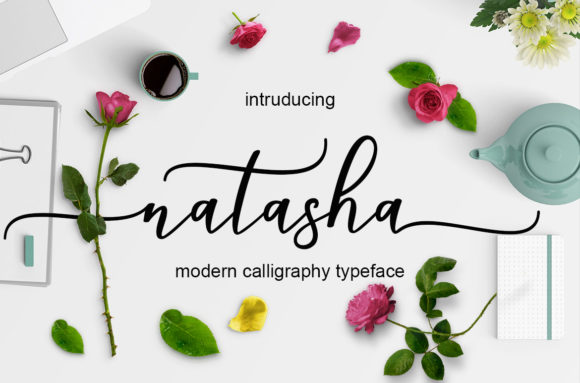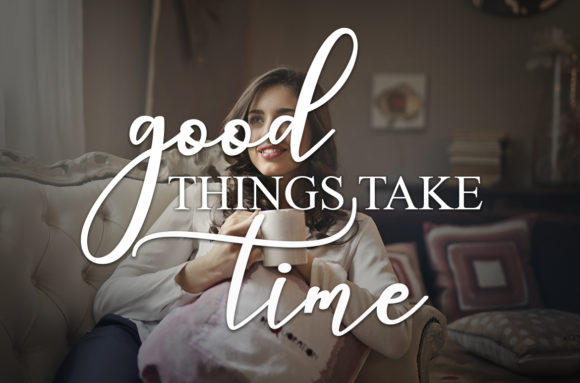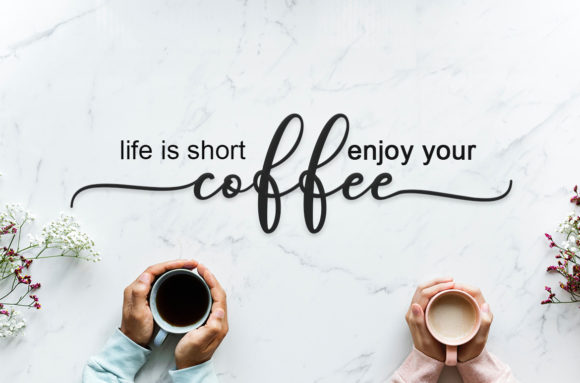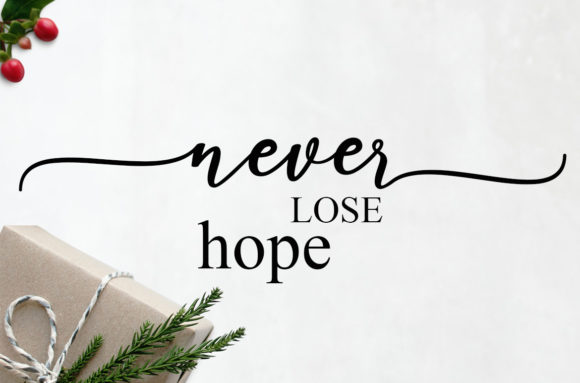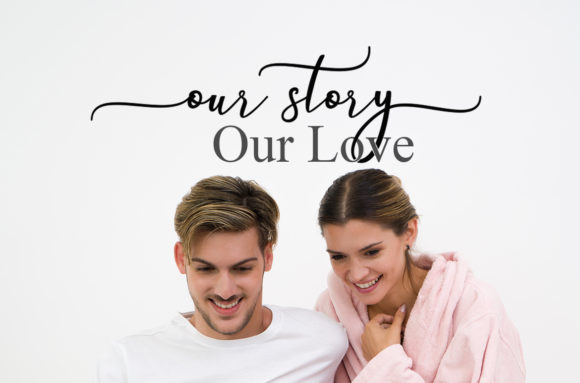
Natasha Script Font
About Natasha Script Font
The Natasha is a fresh and modern script font. It has a classy calligraphy style and includes amazing decorative characters.
Its handwritten style is perfect for invitations, greeting cards, branding materials, business cards, posters, and much more!